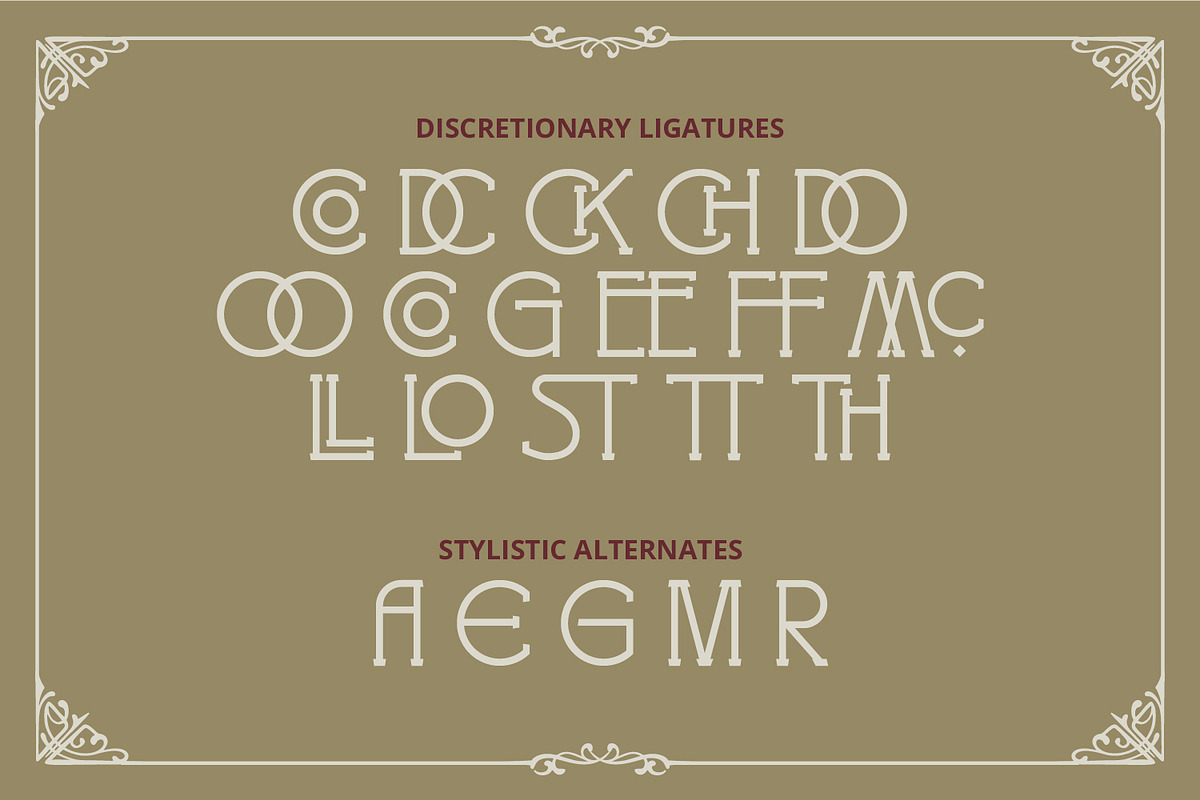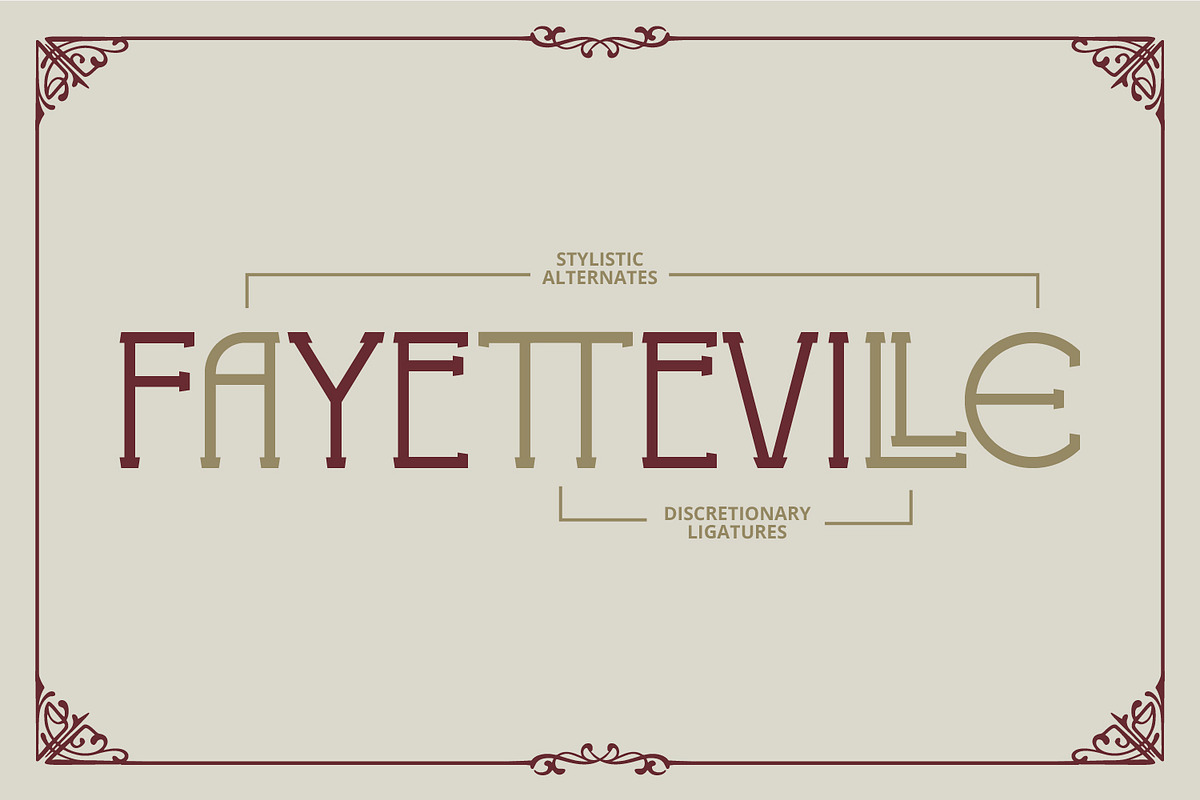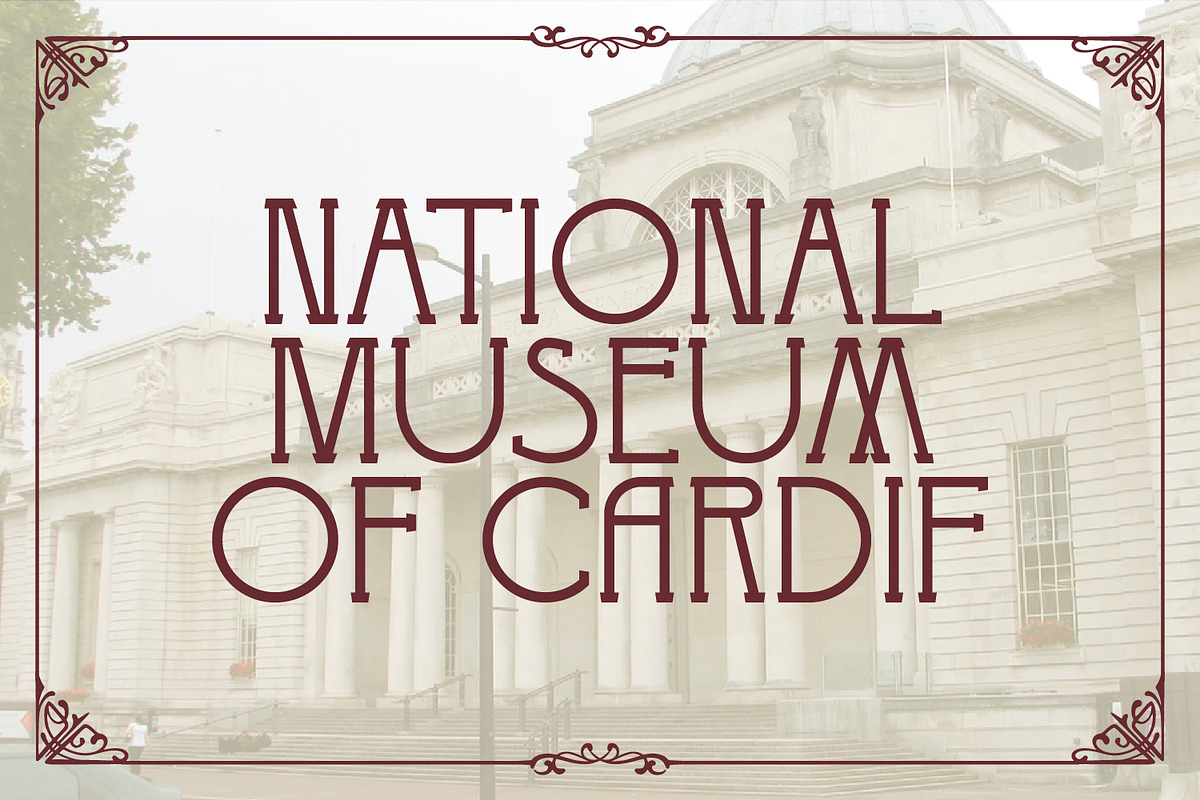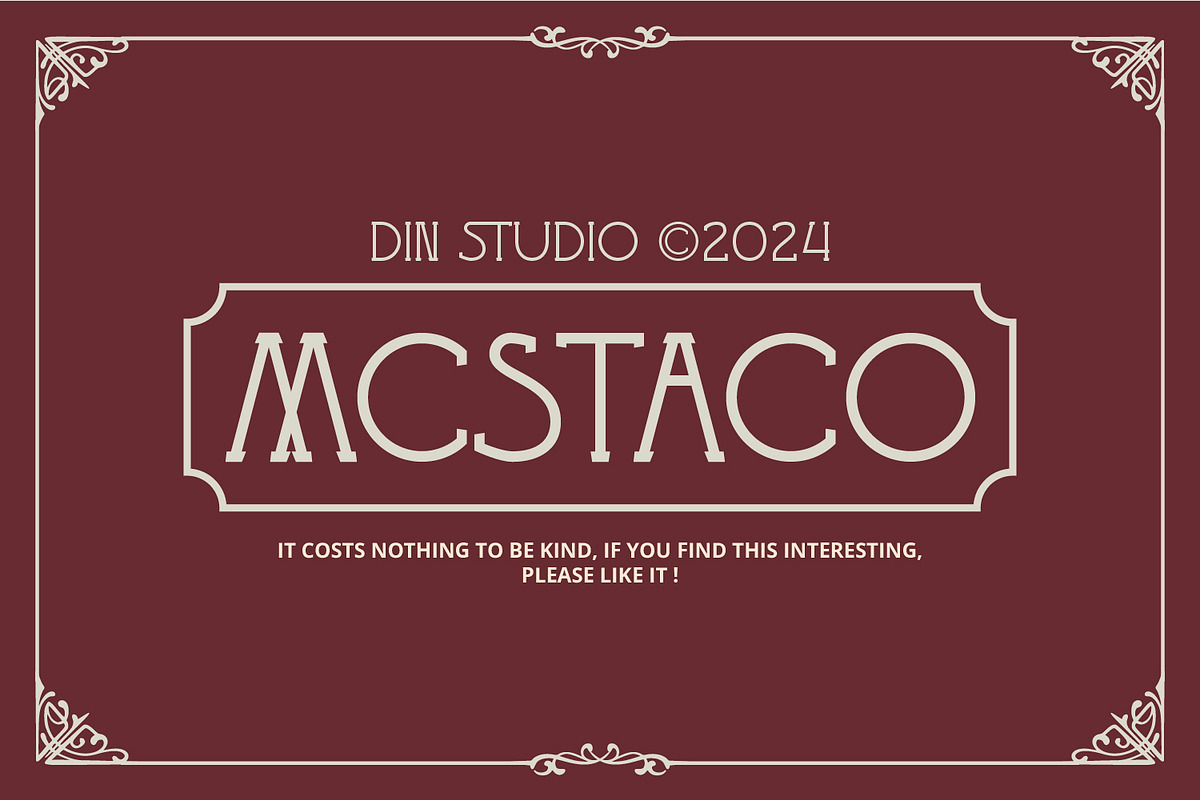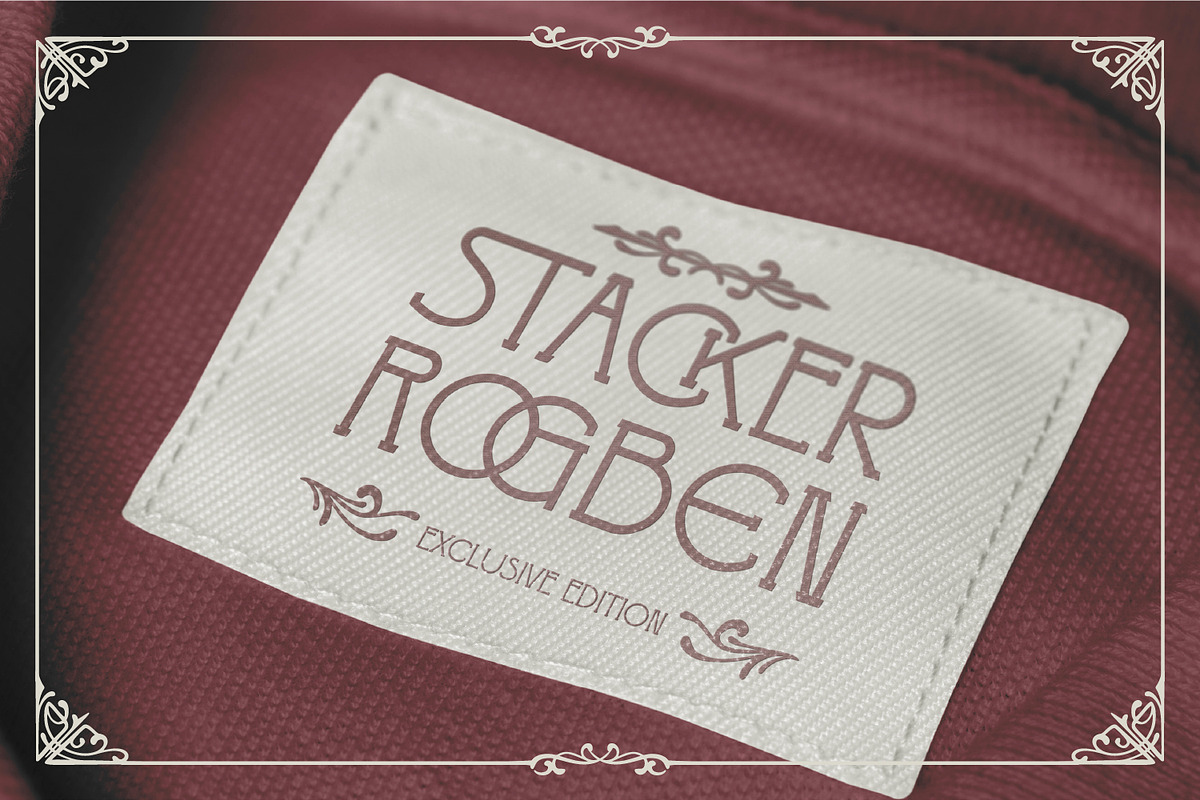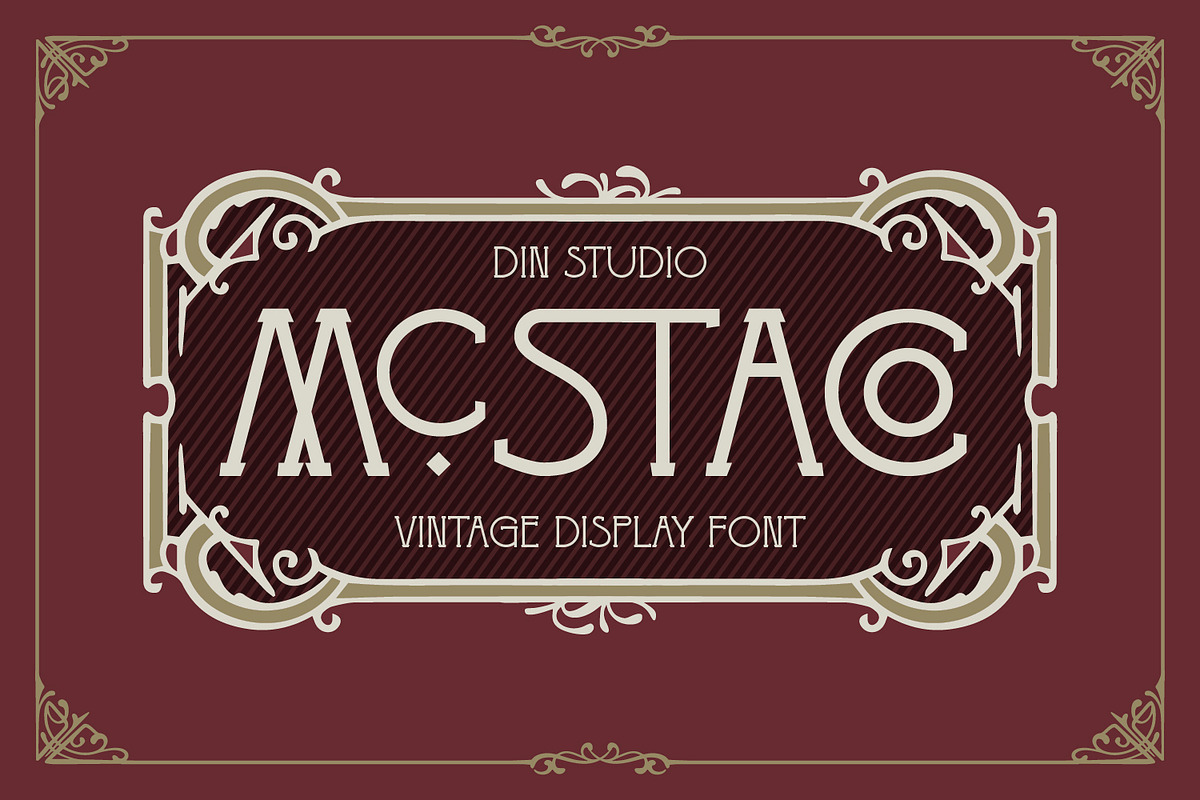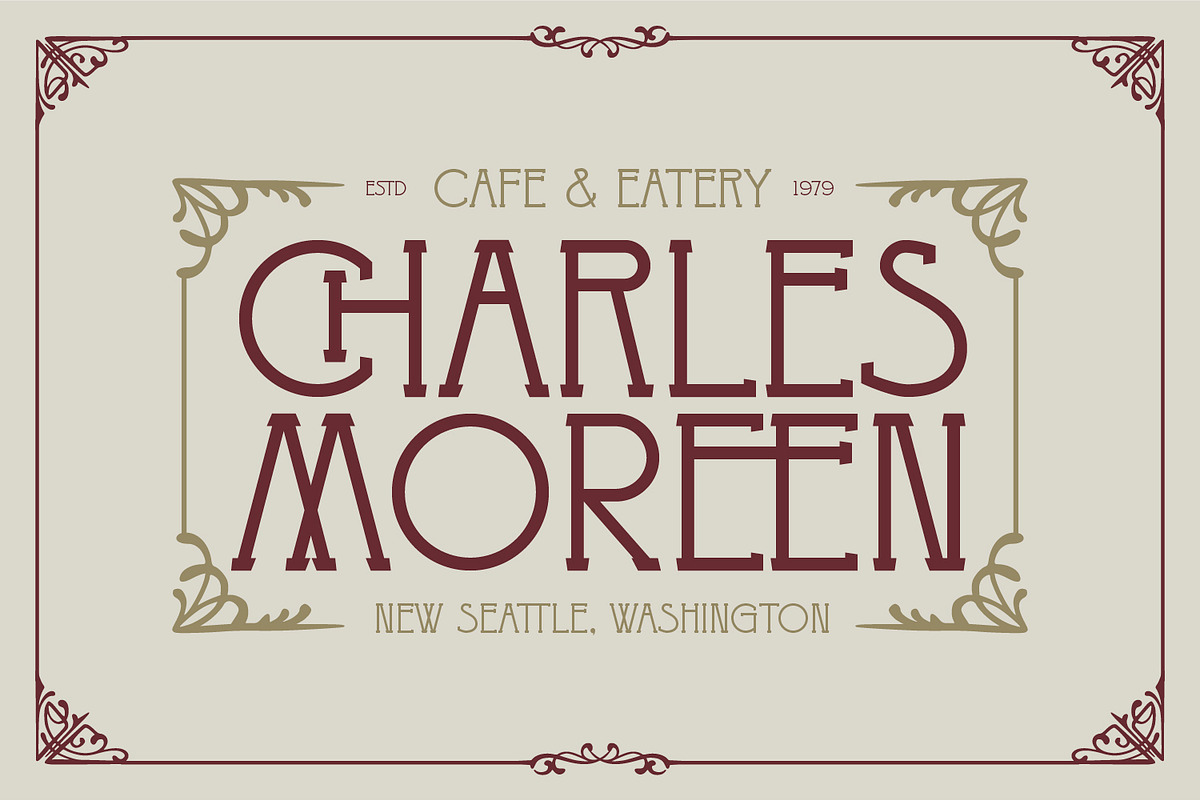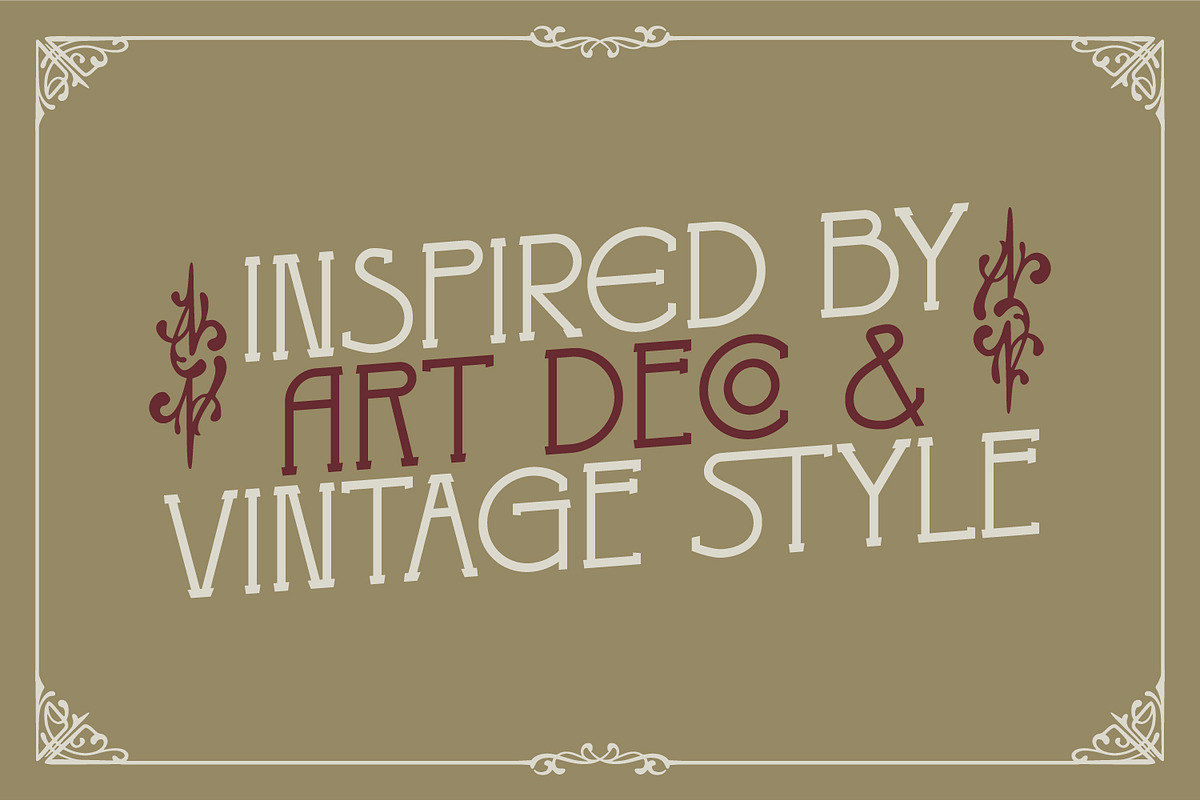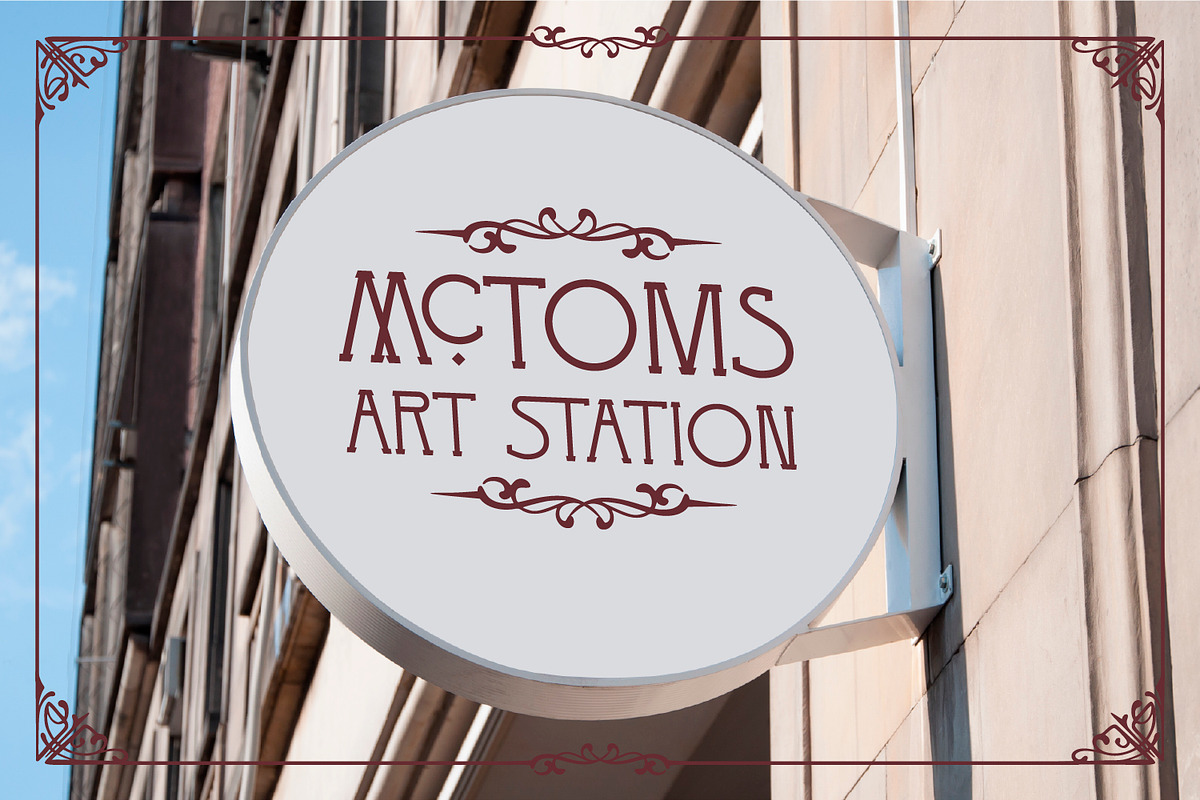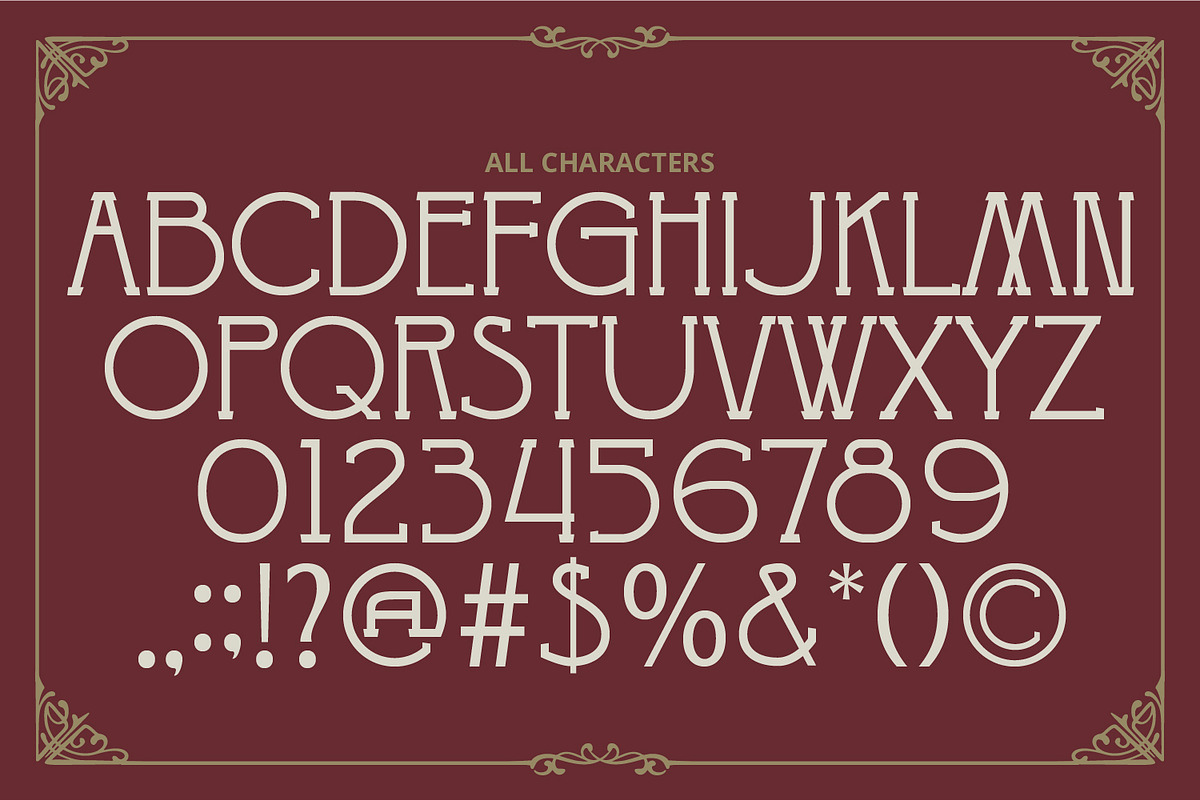
Mcstaco
Introducing Mcstaco, a sleek and elegant display font with a vintage flair. Crafted in uppercases, Mcstaco shows a refined, thin weight that brings a touch of sophistication to any project. The consistent and clean letterforms, combined with softly rounded shapes, create a smooth and approachable feel. With its timeless vintage style and delicate design, Mcstaco adds a subtle yet striking charm to your creations. This font gives ornament sets as extra. In addition, enjoy the features here.
Mcstaco fits in headlines, logos, posters, branding materials, packaging, print media, editorial layouts, and many more designs. Find out more ways to use this font by taking a look at the font preview.